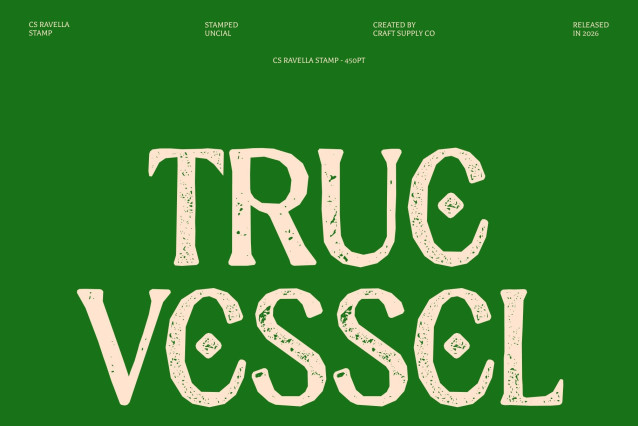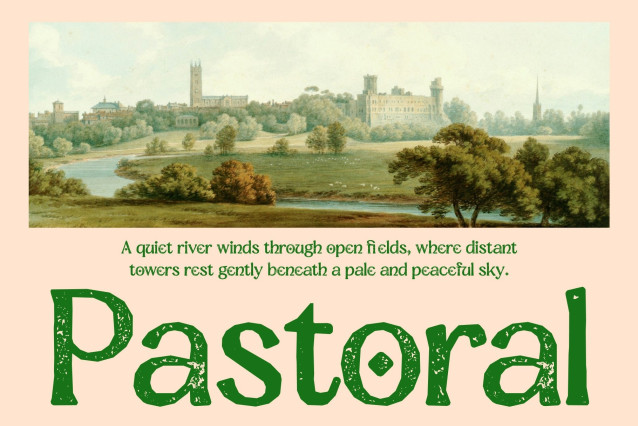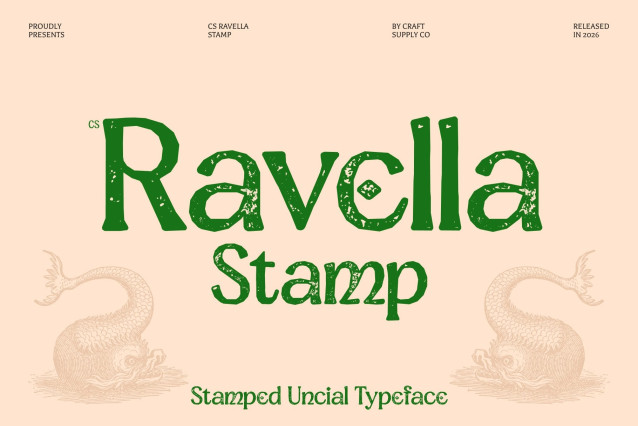
CS Ravella Stamp – Uncial Display Font: Where Ancient Elegance Meets Vintage Stamp Texture
Historical Letterforms with Timeless Manuscript Beauty
This is a display font inspired by uncial script traditions, reflecting the timeless artistry and elegance of ancient manuscripts. Its historical letterforms carry a graceful and decorative presence filled with heritage, sophistication, and cultural depth. Every character feels carefully crafted and expressive, making the font perfect for projects that seek a refined classical atmosphere.
Stamp Texture with Authentic Vintage Character
This font features rough and uneven detailing that adds vintage authenticity and tactile visual depth. This textured finish creates a worn handcrafted appearance reminiscent of aged parchment, antique prints, and traditional stamping techniques. The result is a design that feels artistic, historic, and full of expressive character.